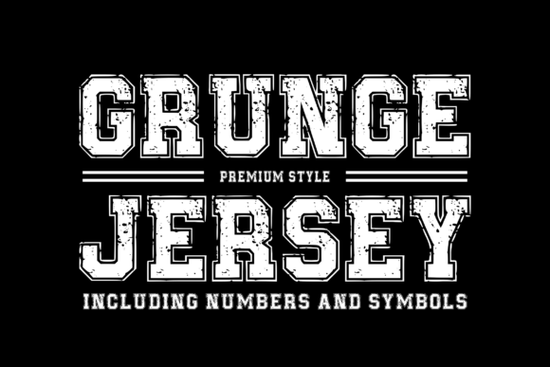
If you're looking for a sporty, clean-but-rugged typeface that works as well on a soccer jersey as it does on a custom t-shirt or Cricut-cut vinyl decal, the Grungejersey Regular Font fits the bill without overcomplicating things. It’s not overly distressed, not too polished it strikes that practical middle ground many designers and crafters actually need. Think varsity lettering with subtle texture: enough character to feel authentic, but legible and versatile enough for real-world use.
What kind of projects is Grungejersey Regular Font best for?
This font shines where athletic energy meets everyday usability. It’s especially helpful if you’re designing:
- Soccer, basketball, or baseball team jerseys (digital mockups or physical prints)
- Custom apparel for youth leagues, school clubs, or local tournaments
- Stickers, iron-ons, and heat-transfer vinyl projects in Silhouette Studio or Cricut Design Space
- Championship banners, trophy engraving text, or gym wall decals
- Branding for small fitness studios, sports camps, or community rec programs
Because it includes uppercase letters, numerals, and basic symbols in both OTF and TTF formats, you won’t hit compatibility roadblocks whether you’re using Adobe software, free tools like Canva, or cutting-machine apps.
How does it compare to other sports-style fonts?
Not all varsity fonts land the same way. Some lean too far into grunge (hard to read at small sizes), others feel too sterile or generic. Grungejersey Regular Font avoids both extremes. Its subtle texture gives it presence without sacrificing clarity even at 24pt on a sleeve label.
If you’ve tried distressed varsity fonts and found them too noisy, this one offers a calmer alternative. It shares some of the confident rhythm of Collegestyle Regular, but with more visual weight and a slightly looser, hand-set feel. Compared to Bold Block Font, it’s less rigid and more organic better for personalization and team identity work. And unlike Brooklin Varsity, which has sharper angles and tighter spacing, Grungejersey breathes a little more, making it easier to kern manually or adjust for curved layouts (like around a jersey collar).
Does it work with cutting machines and print-on-demand platforms?
Yes reliably. Users report smooth performance in Cricut Design Space and Silhouette Studio, especially when converting to outlines or using the “cut” layer function. For POD sellers, it holds up well on platforms like Printful, Teespring, and Redbubble, particularly in bold placements (chest logos, back numbers, sleeve accents). Just avoid tiny point sizes (<14pt) for embroidered versions stick to screen printing or DTG for finer detail.
It’s also worth noting that while Smart Candy Font leans playful and rounded, Grungejersey keeps things grounded and sport-forward so choose based on your audience. A kids’ summer camp tee might suit Smart Candy better; a high school football fundraiser shirt? Grungejersey feels right at home.
Creative Fabrica hosts user-uploaded mockups and project files alongside the font listing. Look for previews showing it on actual jersey templates, stitched patches, and vinyl-cut lettering. You’ll notice how the slight imperfections in stroke weight and edge texture translate across materials not overwhelming, just enough to suggest movement and wear.
A quick checklist before you download or license
- ✅ You need a bold, uppercase-only display font for athletic or team-related designs
- ✅ You’re using Cricut, Silhouette, or standard design software (no special plugins needed)
- ✅ You want subtle texture not heavy distressing that still reads clearly on fabric and vinyl
- ✅ Your project includes numbers (jersey numbers, years, scores) and basic punctuation
- ❌ You don’t need lowercase letters, ligatures, or multilingual support (it doesn’t include those)
If those match up, Grungejersey Regular Font is a straightforward, no-fuss choice designed for makers who value consistency, compatibility, and quiet confidence in their typography.